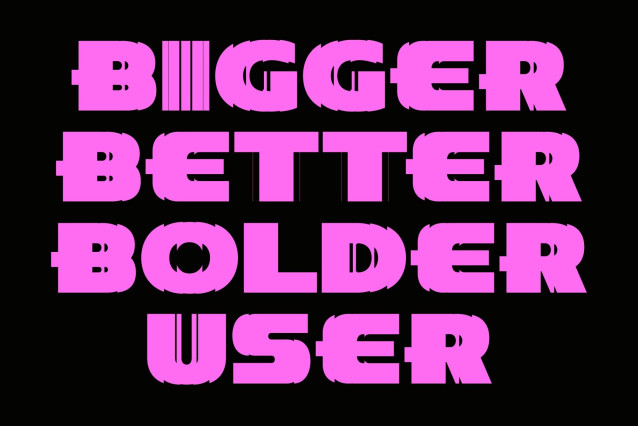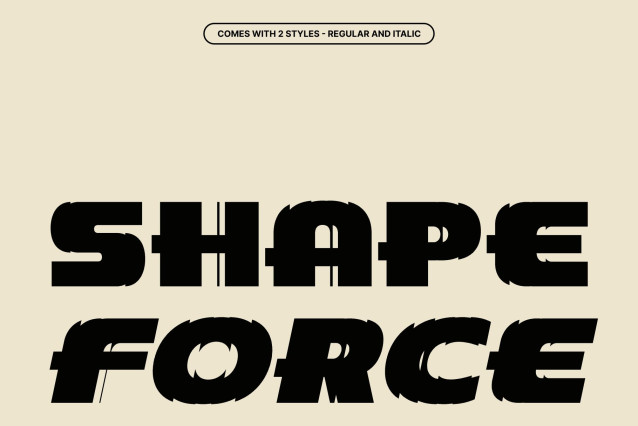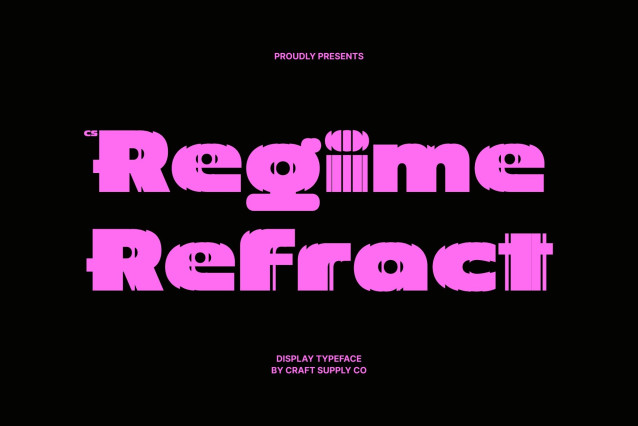
CS Regime Refracted Font
CS Regime Refracted – Bold Display Font: Where Bauhaus Geometry Meets Futuristic Refraction
Retro Bauhaus Forms with Modern Precision
This is a bold display font that blends retro character with a clean modern design sensibility. Inspired by classic Bauhaus principles, its geometric structure and balanced proportions create a striking visual identity filled with clarity, functionality, and artistic sophistication. Every character feels bold and structured, making the font perfect for impactful contemporary display compositions.
Refracted Effect with Futuristic Fragmentation
This font features glitch-inspired light refraction details that create fragmented cuts, geometric slices, and layered visual distortions. This futuristic effect introduces depth, movement, and digital energy while maintaining the font’s clean and elegant appearance. The result is a visually immersive style that feels modern, experimental, and technologically refined.